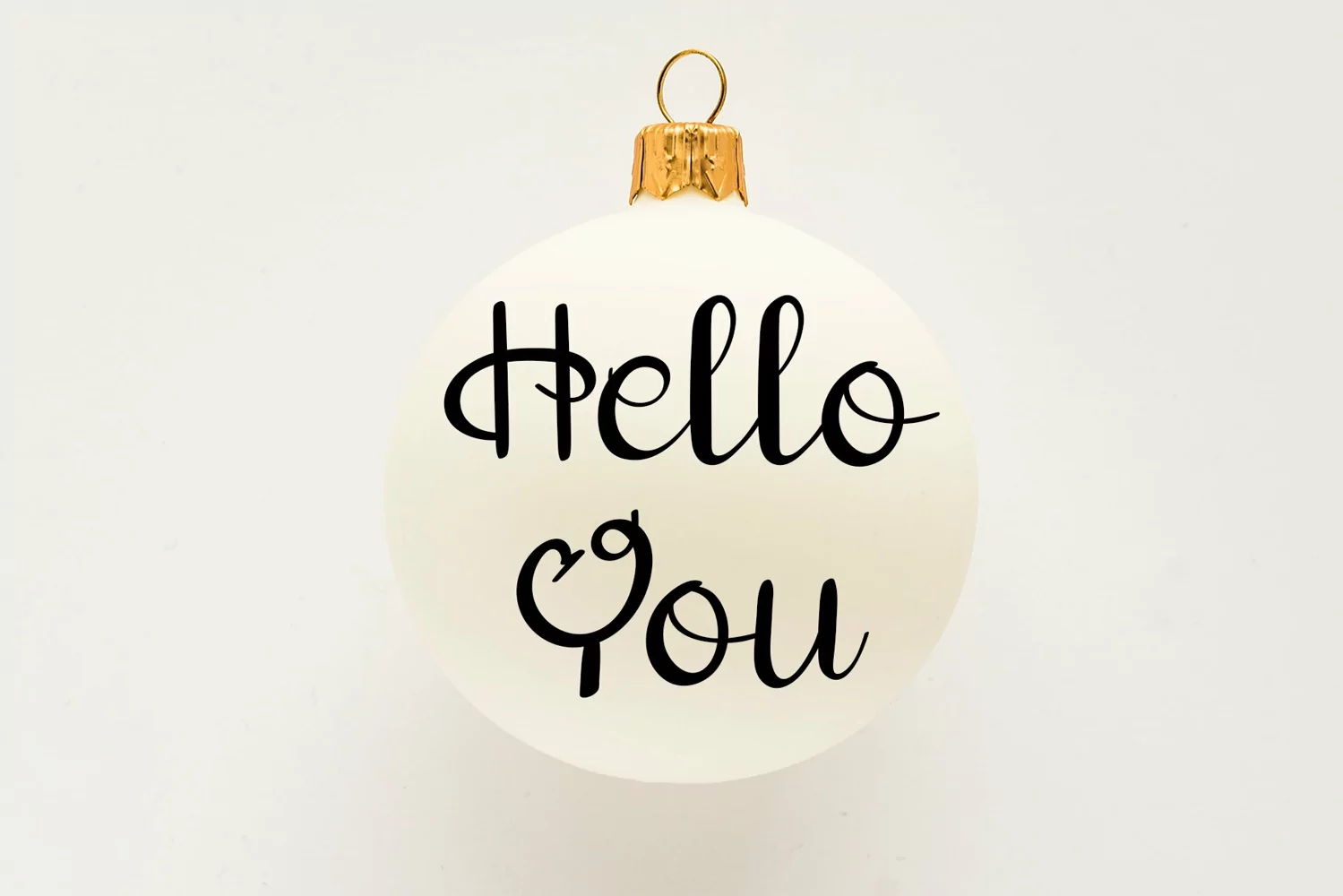
Romantic Mandala
Introducing, this is our newest product, we call this product Romantic Mandala,
It looks amazing with sweet touches and beautiful curves in each letter. Romantic Mandala fonts are perfect for: wedding invitations, fashion magazines, logos, signatures, photography, watermarks, wall displays, social media,